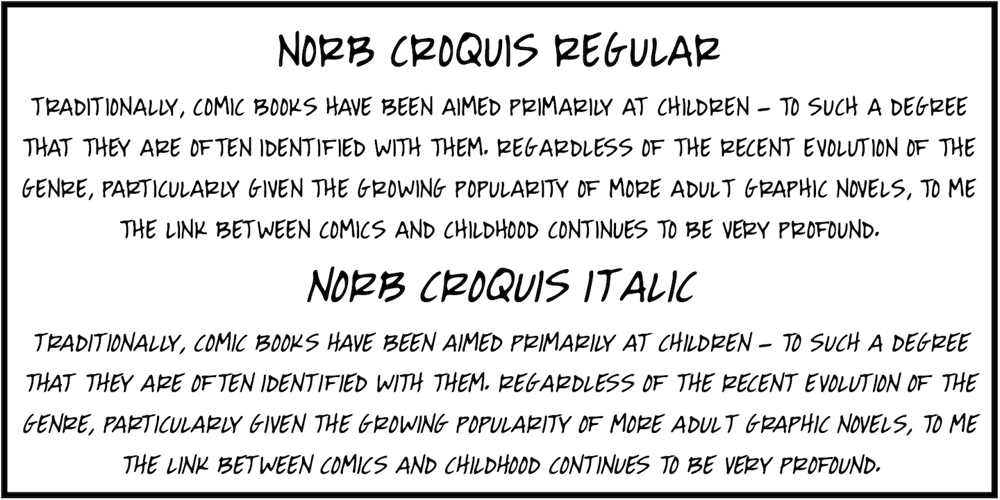
NorB Croquis
NorB Croquis font
NorB Croquis Font Family was designed by Nor Eddine Bahha and published by NorFonts. NorB Croquis contains 12 styles and family package options. NorB Croquis is a handwritten text font witch can be used with any word processing program for text and display use, print and web projects, apps and ePub, comic books, graphic identities, branding, editorial, advertising, scrapbooking, cards and invitations and any casual lettering purpose… or even just for fun!It comes with 12 weights: Normal, Medium, Bold and Cut Tip along with their Italic and Oblique versions.